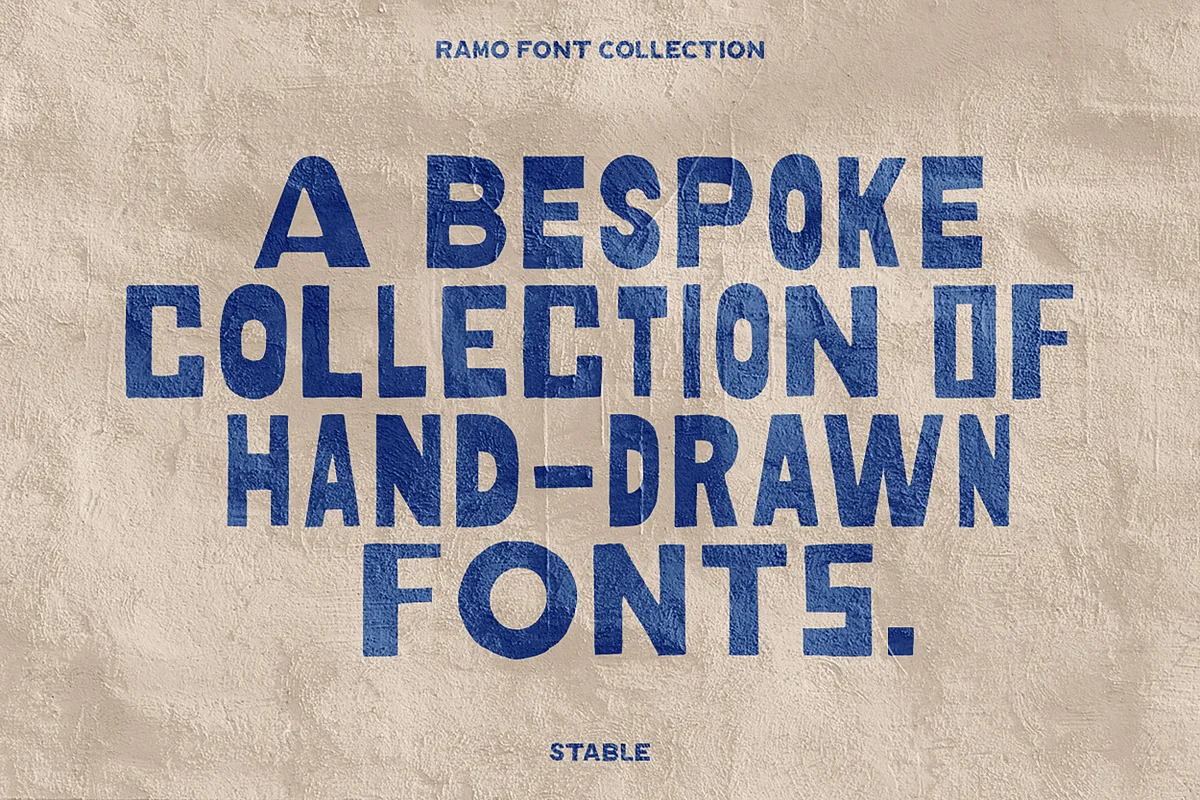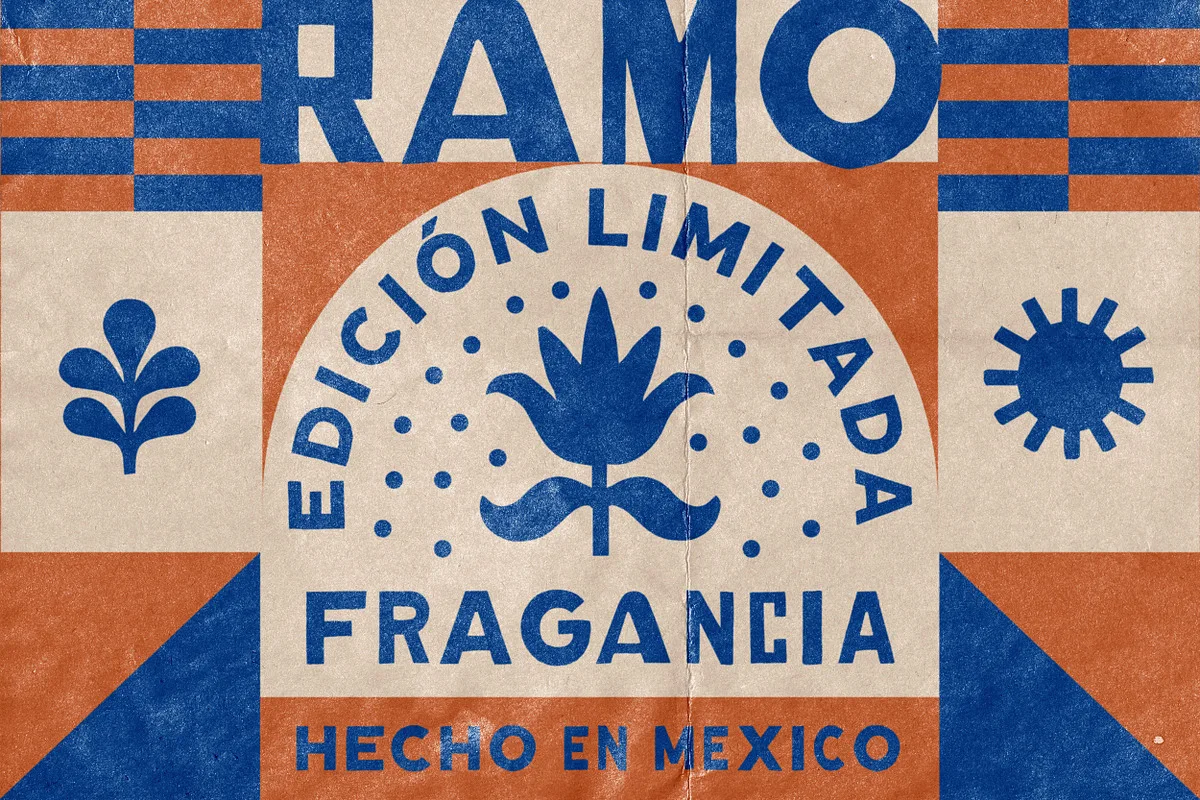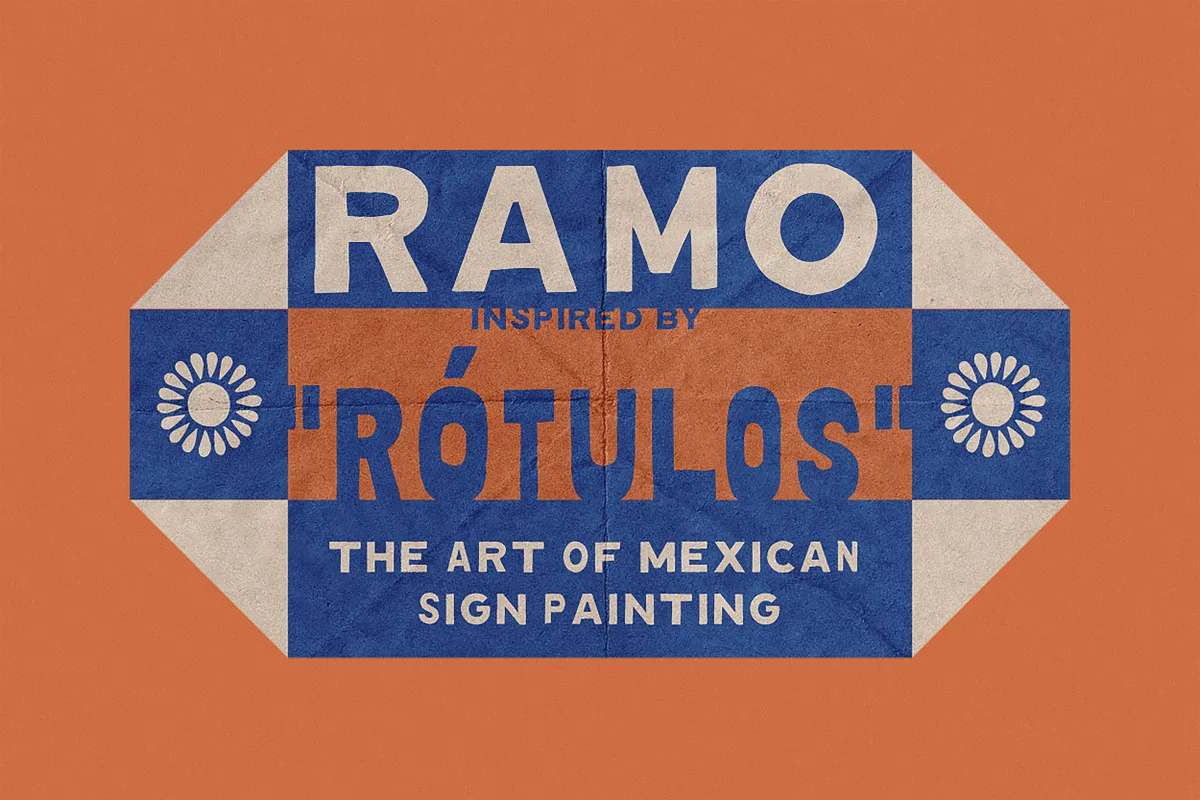
Ramo is a bespoke collection of hand-drawn fonts inspired by “Rotulos”, the art of hand-painted signage in Mexico. This set includes 4 fonts with alternates, numerals, and punctuation. It also includes over 20 decorative dingbats inspired by Mexican talavera tile.
Ramo Font Collection